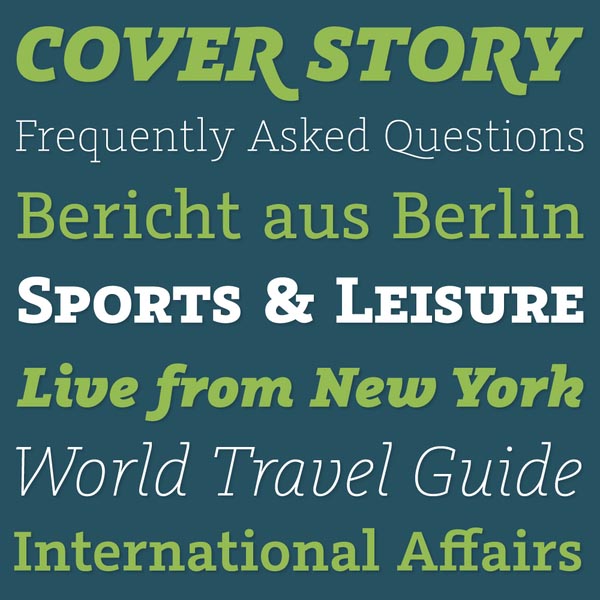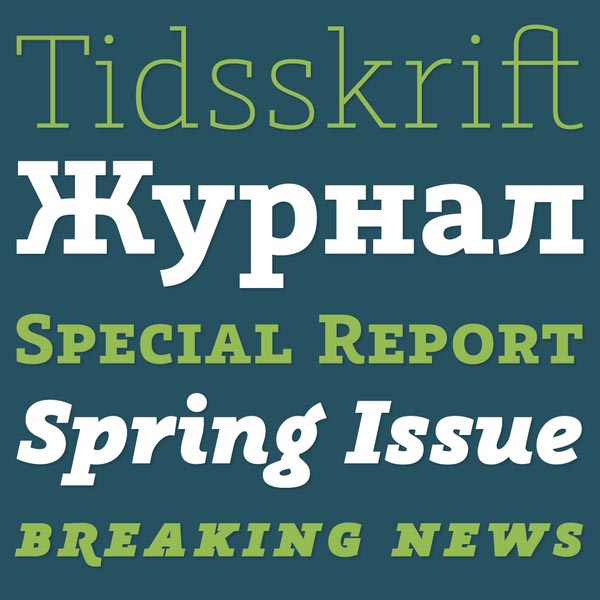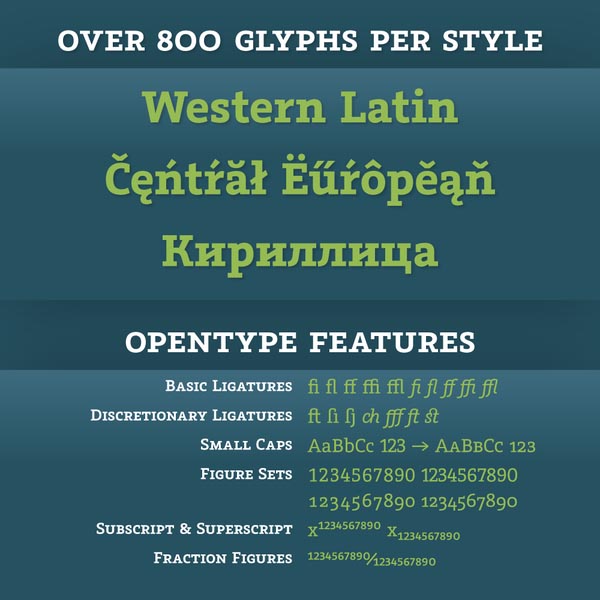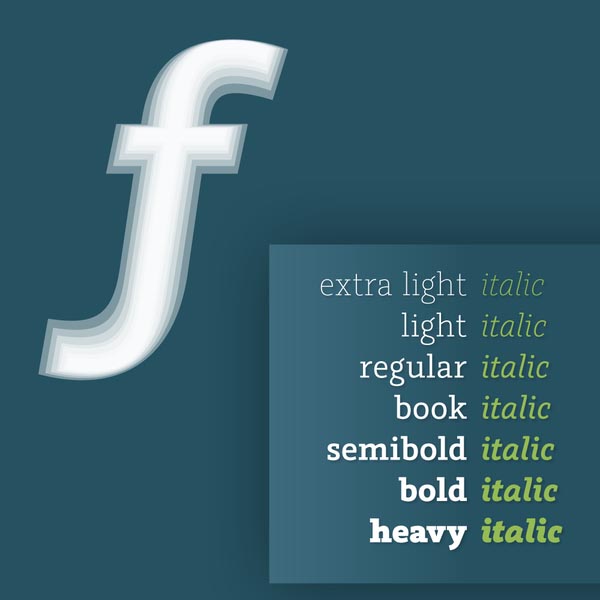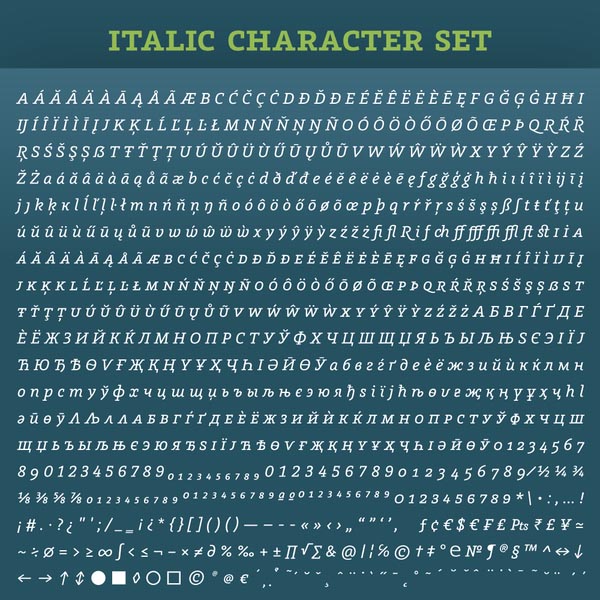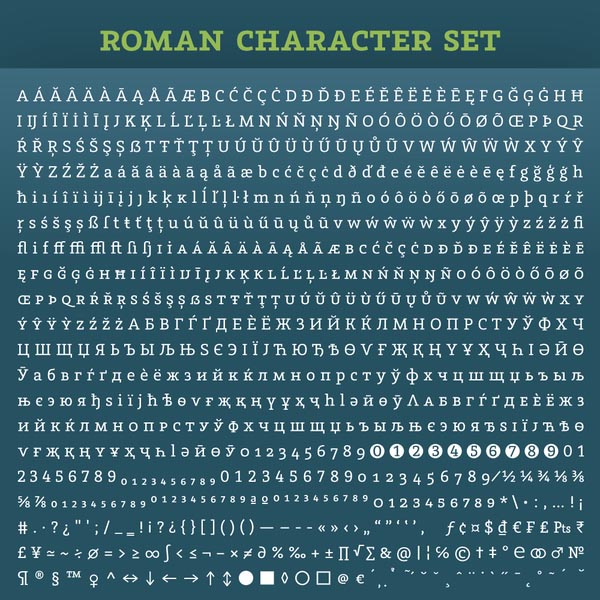
Graublau Slab Pro.
The Graublau Slab Pro font is an addition to the popular Graublau type family by German font designer Georg Seifert from Berlin, published by fonts.info. The complete Graublau type family offers a contemporary and expressive design and with Graublau Slab Pro, the type family becomes even more versatile. This beautiful slab serif font is a perfect choice for editorial design, headlines for print and web or any other text use. Graublau Slab Pro comes in the same 7 weights as Graublau Sans Pro. Through that both typefaces work great together.